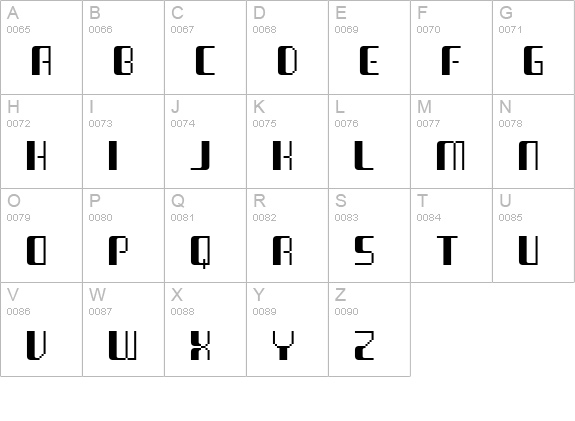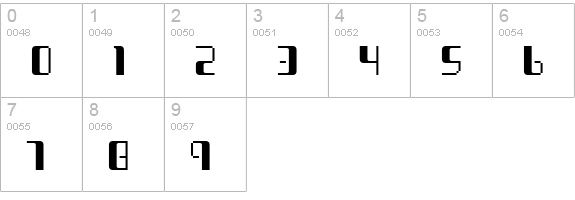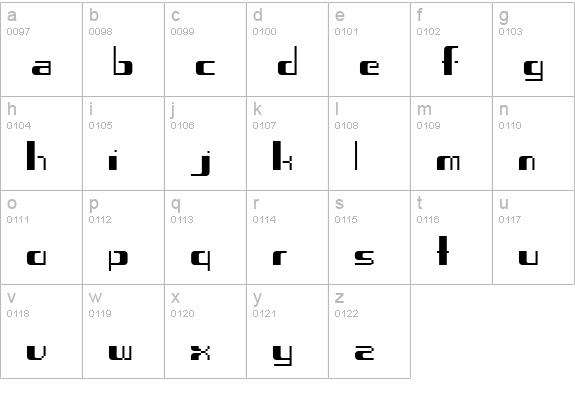
Virus 53X Font Details
Introducing Virus 53X font, a stunning and captivating typeface that will bring a touch of boldness and modernity to your designs. This unique font is carefully crafted with intricate details that make it stand out from the crowd. Its edgy and futuristic style provides a perfect solution for those seeking a font that portrays power and innovation. Virus 53X font carries an undeniable charm that catches the eye, making it an ideal choice for various design projects such as logos, branding, posters, headlines, and much more. Its versatility allows it to adapt effortlessly to any creative concept, adding a dynamic and contemporary vibe to your work. But the best part? Virus 53X font is available for free download exclusively at FontsMarket.com. Yes, you heard it right! This incredible font can be yours without spending a penny. FontsMarket.com is renowned for its vast collection of high-quality fonts, and Virus 53X is no exception. With just a few clicks, you can have this remarkable font at your disposal, ready to elevate your designs to new heights. So, don't miss out on the opportunity to enhance your projects with Virus 53X font. Embrace its distinctive aesthetic and let your imagination run wild. Whether you're a professional designer or a passionate enthusiast, this font will undoubtedly become a valuable asset in your creative toolbox. Download Virus 53X font today and unlock a world of design possibilities, all for free at FontsMarket.com.